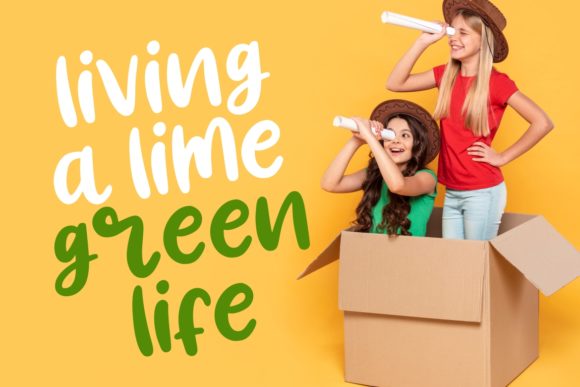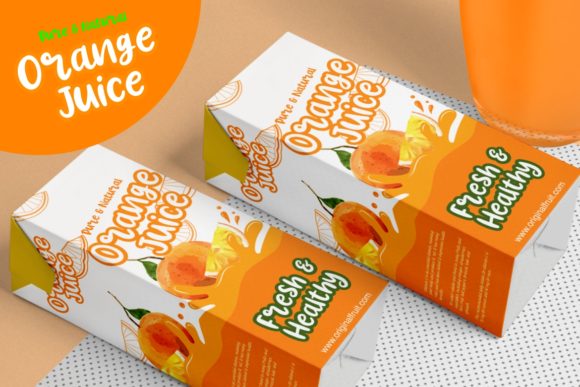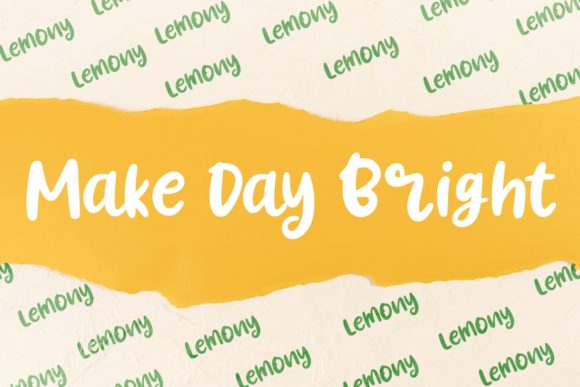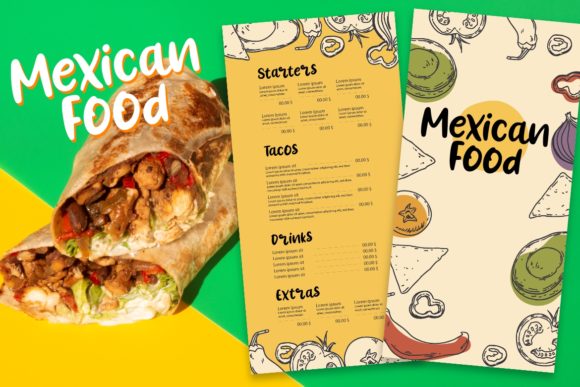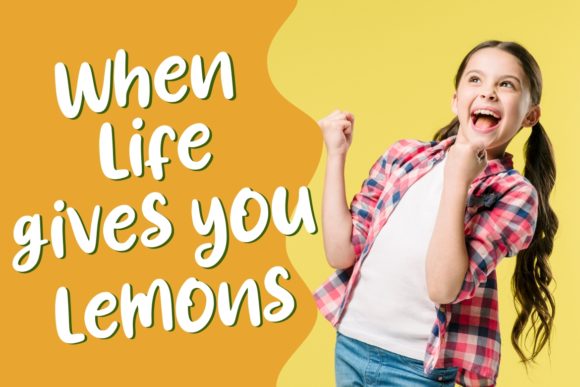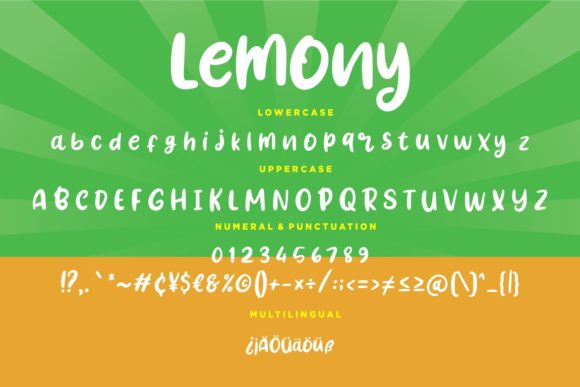
Introduction to Lemony Font
Lemony is a colorful and sweet display font.
Its friendly feel makes this font incredibly versatile, fitting a wide range of contexts Add it to your creative ideas and notice how it makes them stand out.